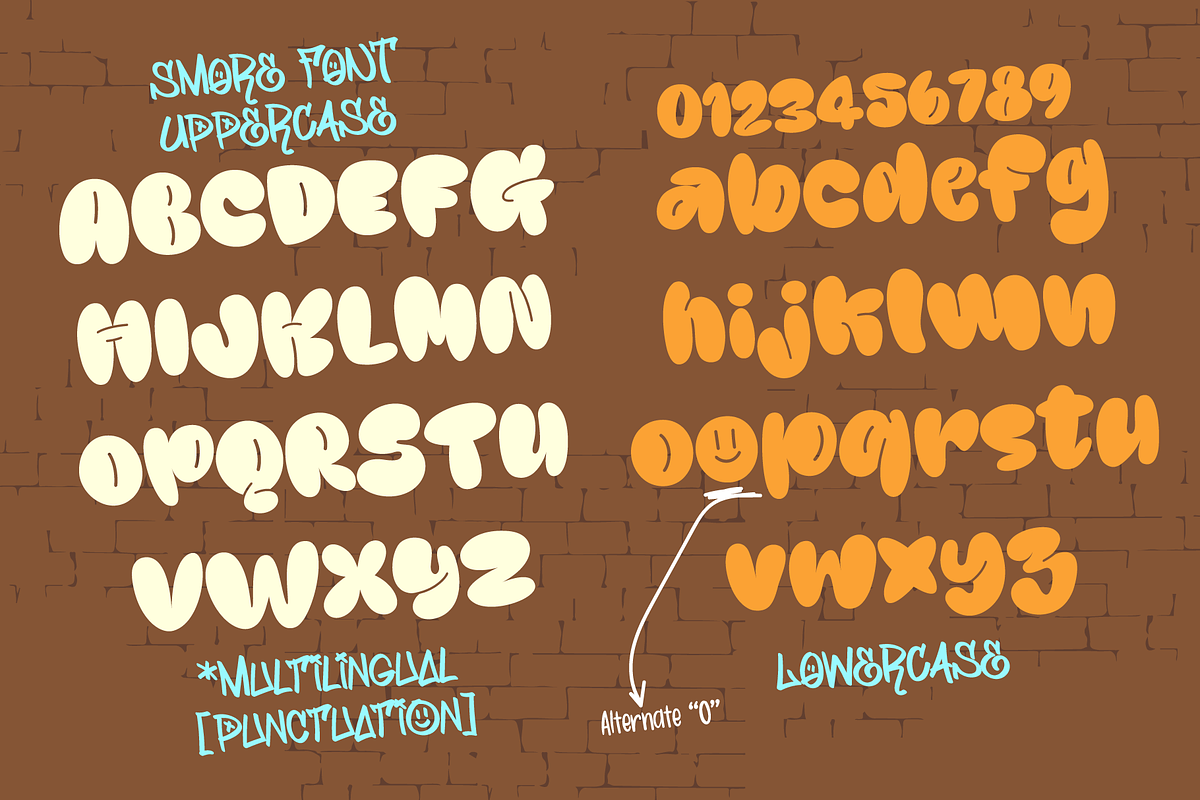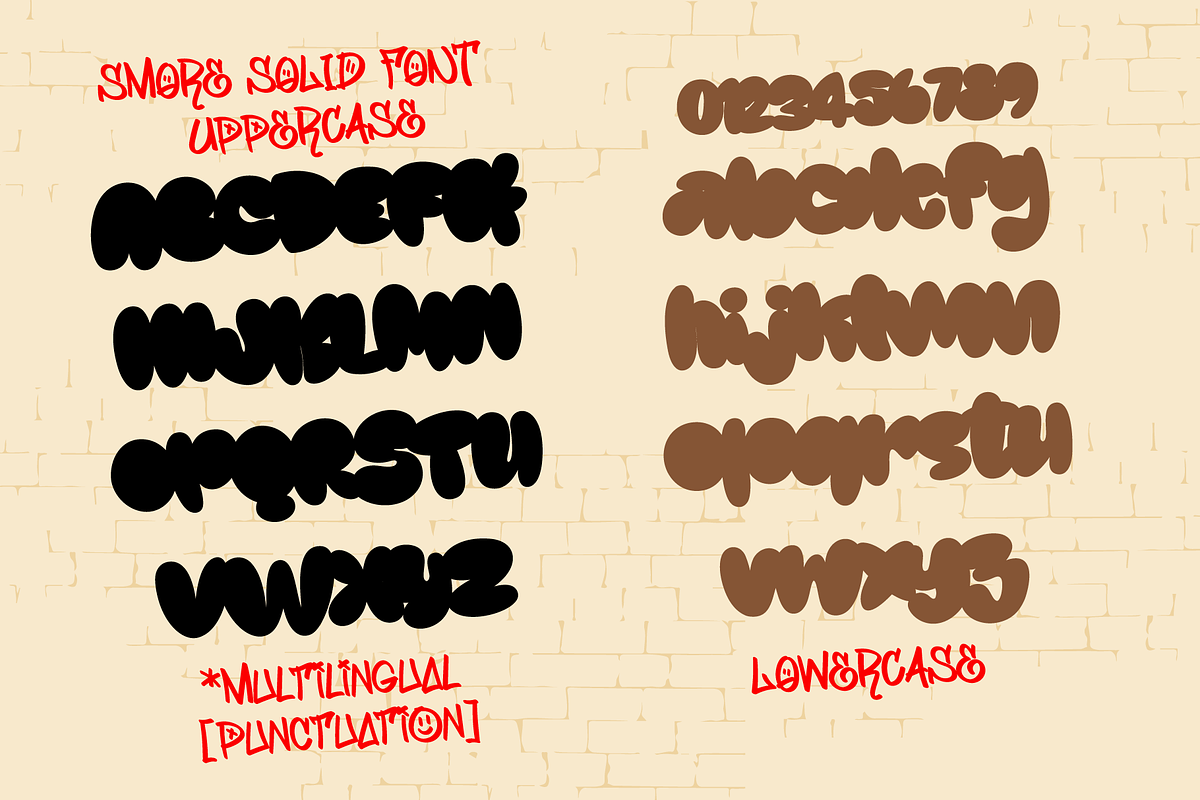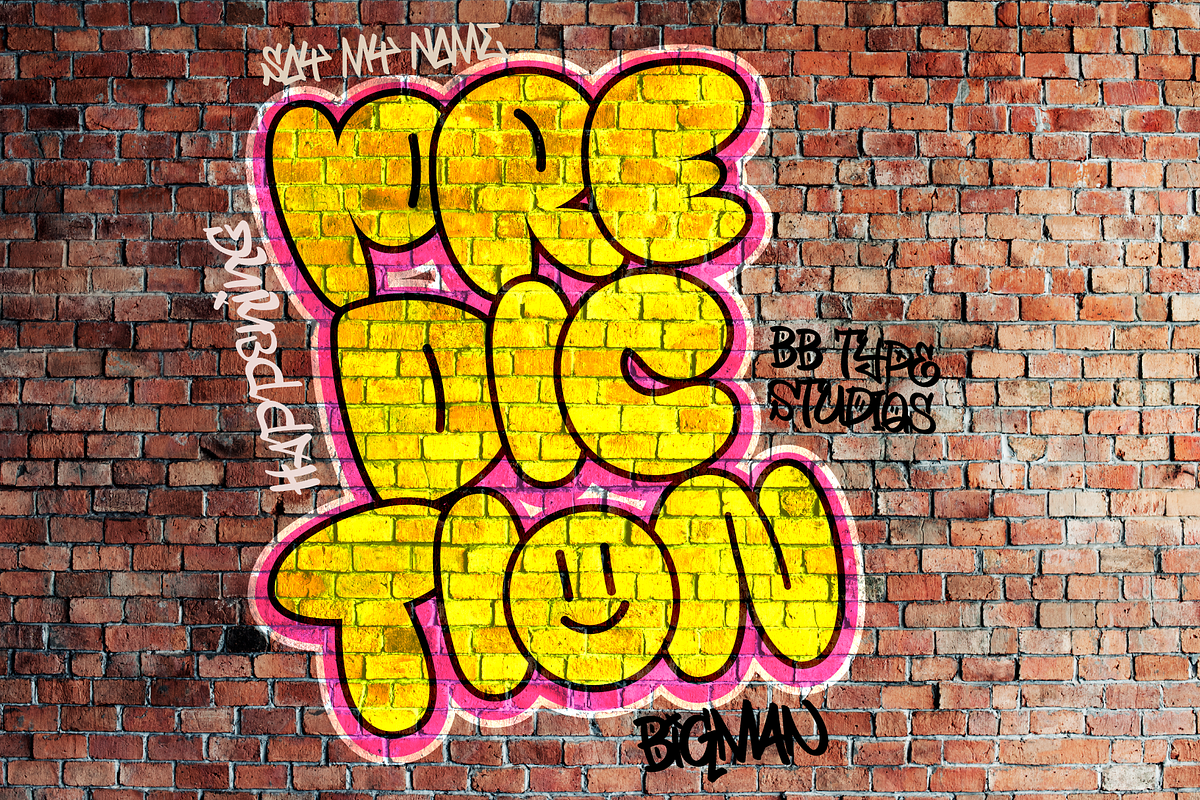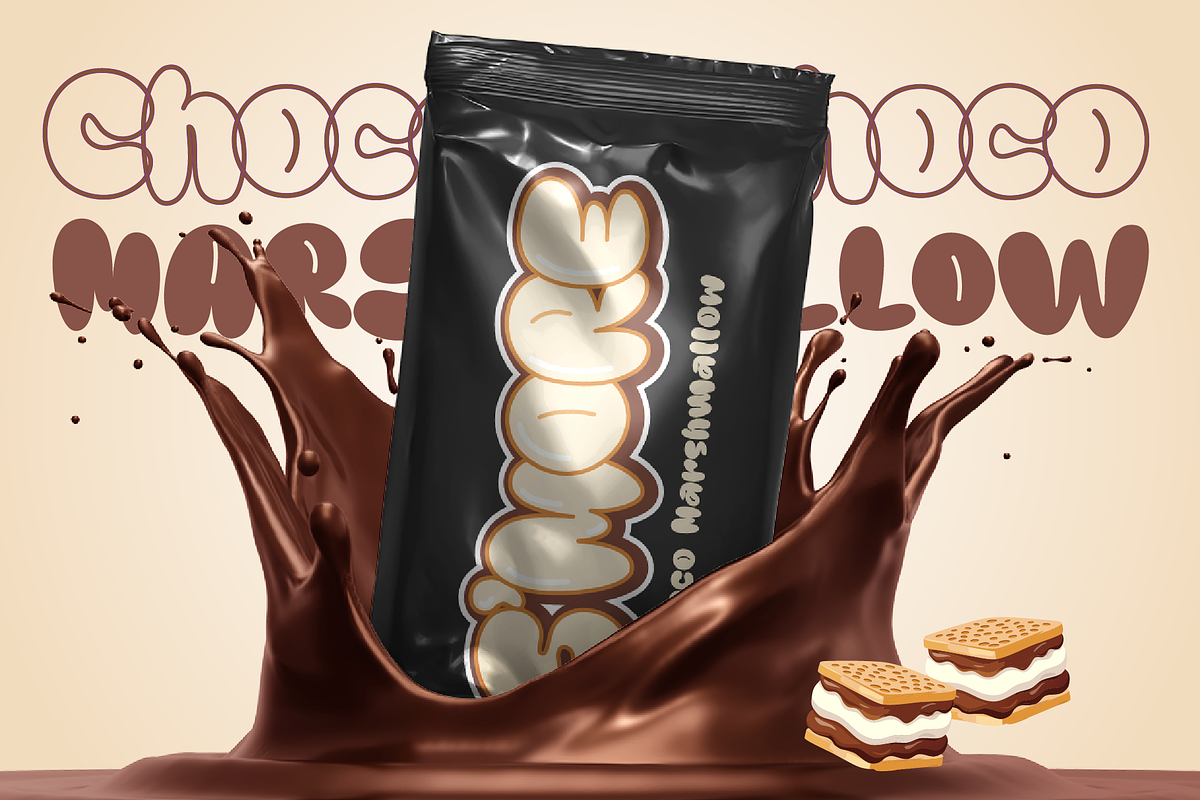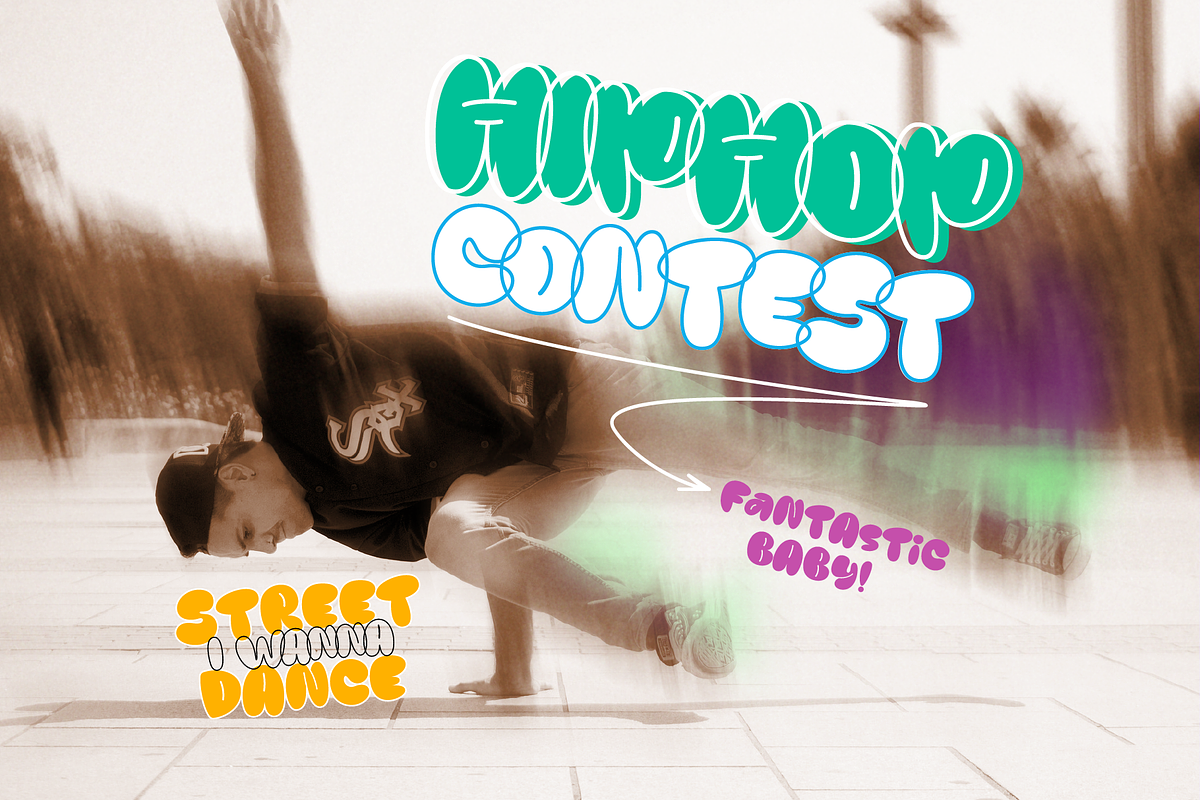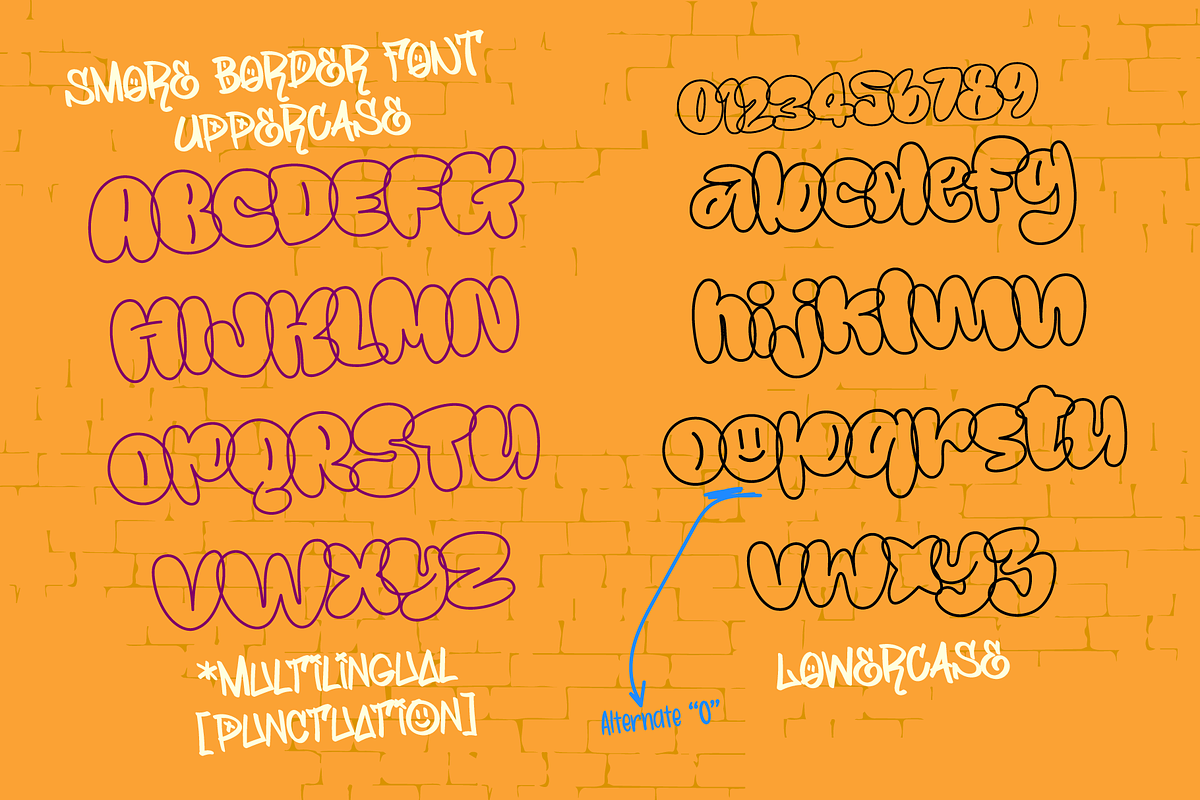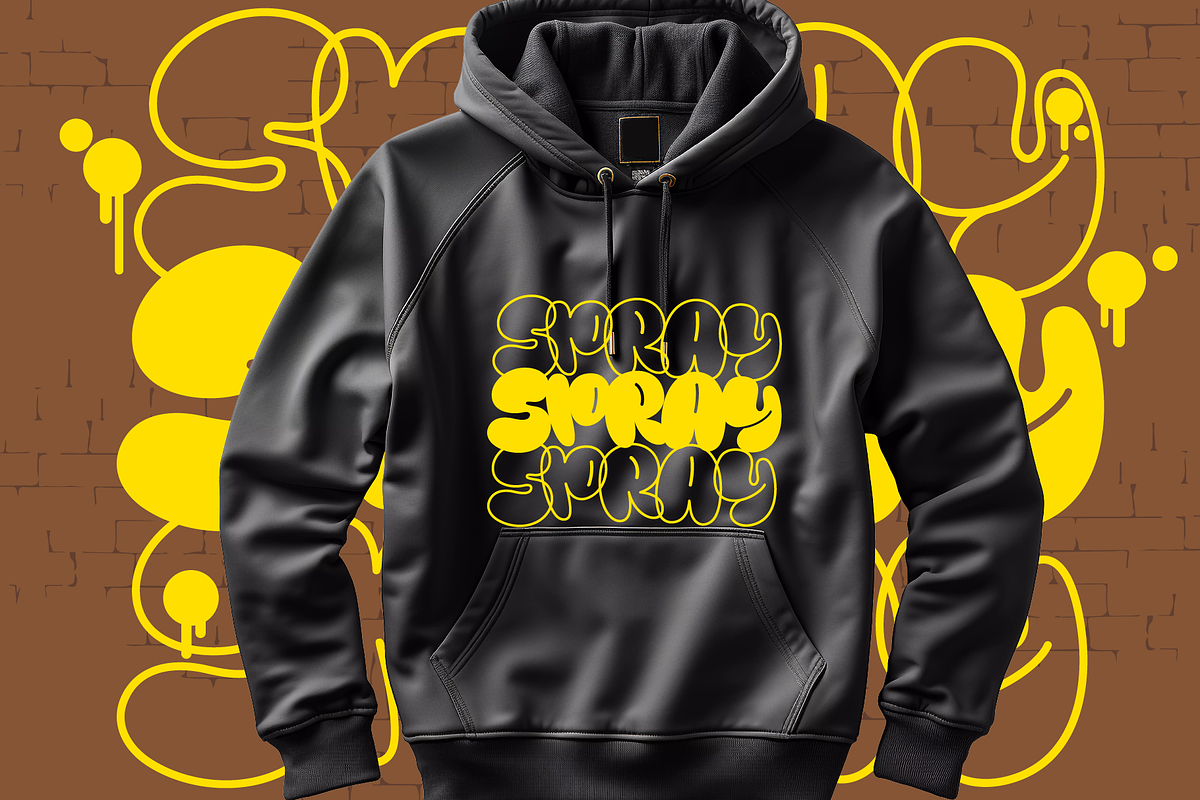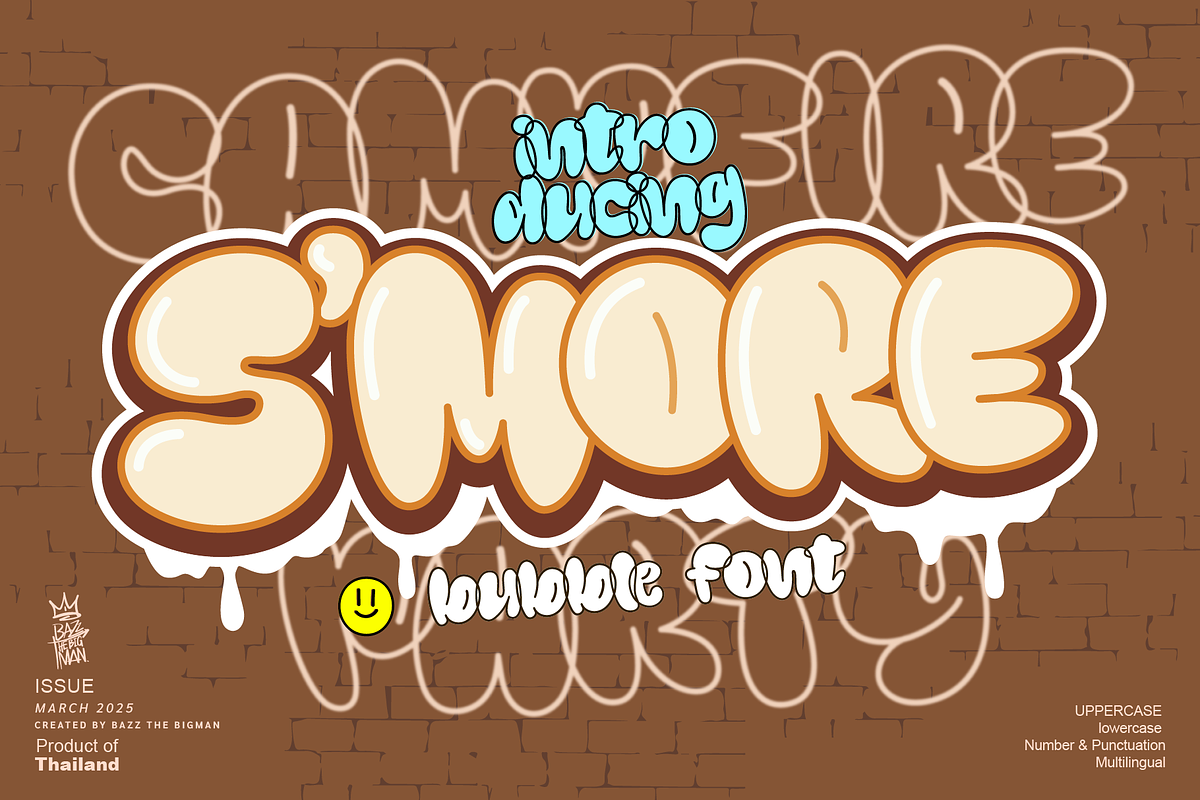
Smore
Experience the quirkiness and bold eccentricity of Smore, our set of three unique display fonts. Imbued with authentic vibes and an atmosphere of sheer fun, Smore purposefully encapsulates the spirit of summer and comes alive in projects looking to evoke the same. With their bubbly, effervescent design, these fonts effortlessly breathe life into street art fashion, T-shirts, packaging, and logos, adding that special touch of originality. Trust Smore to lend a dash of playfulness, transforming your creative ideas into eye-catching art pieces.